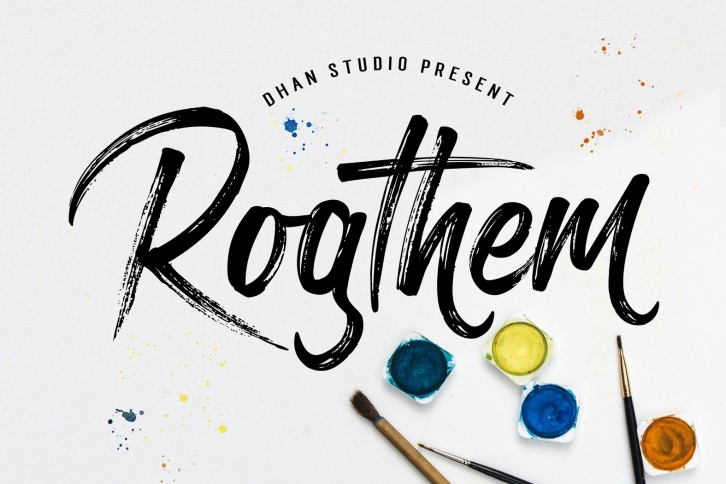
Rogthem is textured brush font, contemporary approach to design, handmade natural with an irregular baseline. Suitable for use in title design. Such as apparel, invitations, books tittle, stationery design, quotes, branding, logos, greeting card, t-shirt, packaging design, poster and more.
Rogthem includes some alternates, ligatures and a complete set of uppercase and lowercase letters, as well as multi-language support, numbers, punctuation.